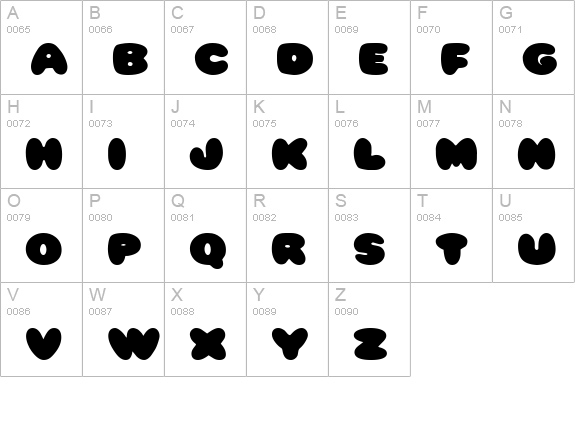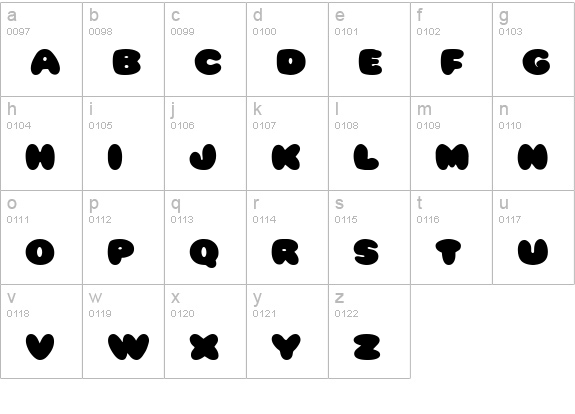
Gumbo Normal Font Details
Gumbo Normal is the standard, neutral variant in the Gumbo typeface family \xE2\x80\x94 well suited to general body text, paragraphs, and standard typographic work.
Gumbo Normal font is a versatile and modern typeface that exudes both elegance and readability. Its sleek, rounded shapes give a friendly and approachable feel to any text, making it perfect for a wide range of design projects. Whether you're working on branding, editorial design, or web content, Gumbo Normal will bring a touch of sophistication to your work. Best of all, Gumbo Normal is available for free download at FontsMarket.com. This means you can easily incorporate this stylish font into your projects without any cost. Don't miss out on the opportunity to add Gumbo Normal to your font collection and elevate your designs with its timeless charm.